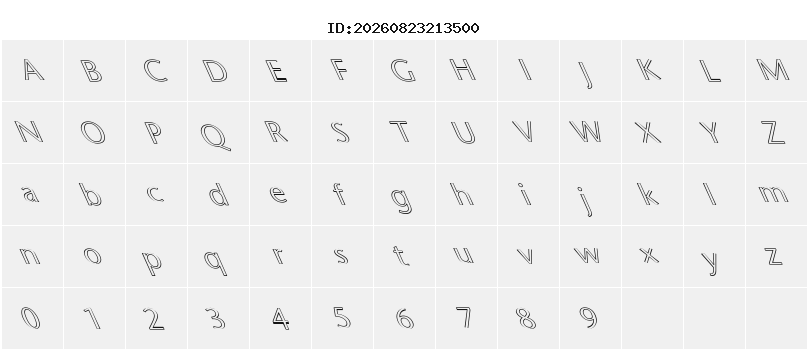
• Font Name: Sapir Sans Hollow Extreme Lefti
• Full Font Name: Sapir Sans Hollow Extreme Lefti
About Sapir Sans Hollow Extreme Lefti.ttf
Sapir Sans Hollow Extreme Lefti.ttf is a modern, elegant sans-serif font designed for ultimate readability and visual harmony. Perfect for branding, headlines, web design, and print materials.